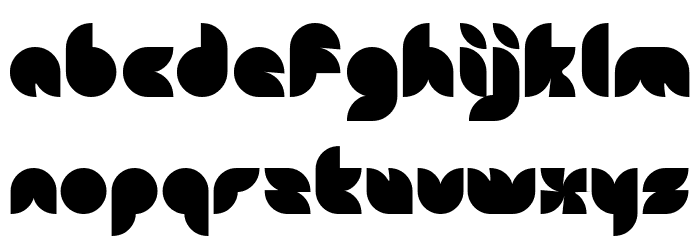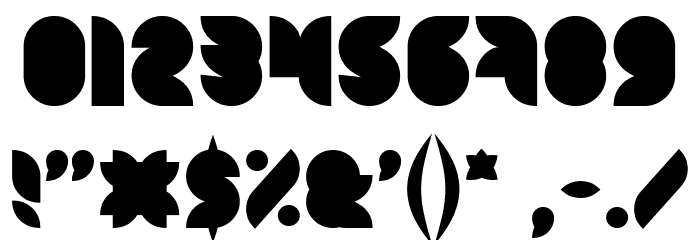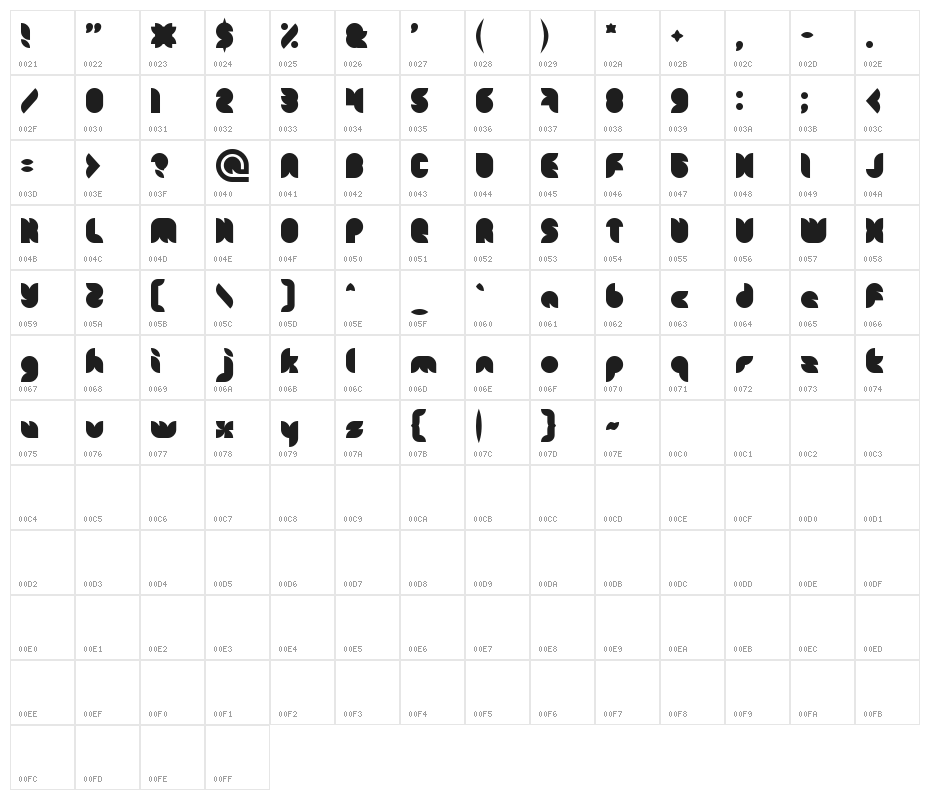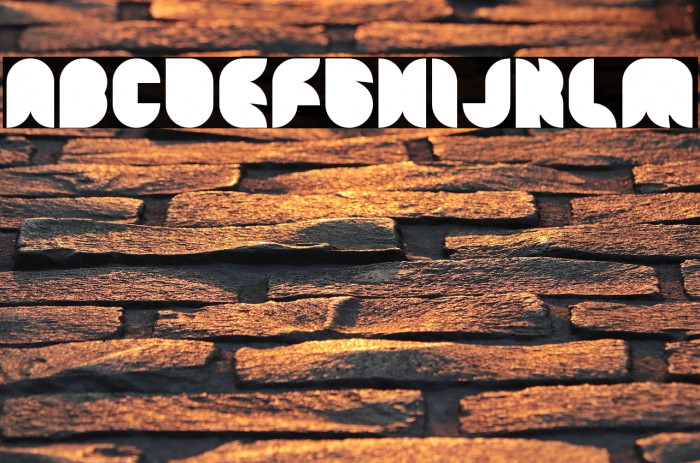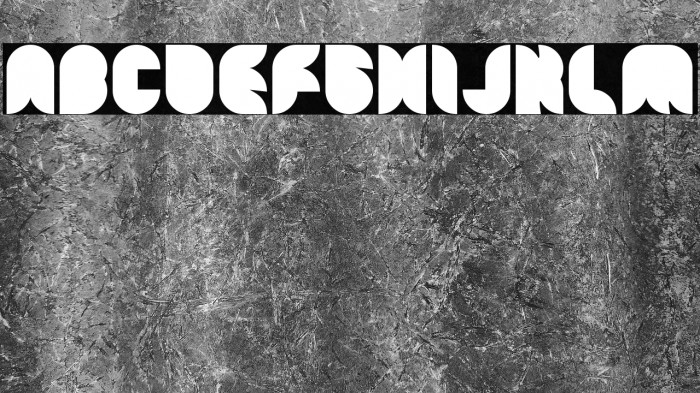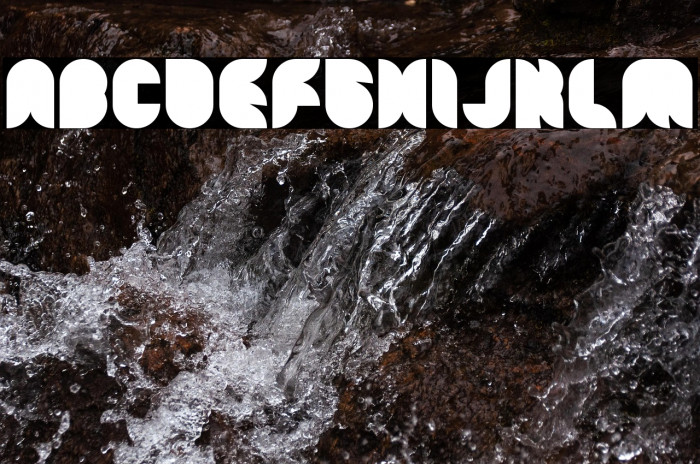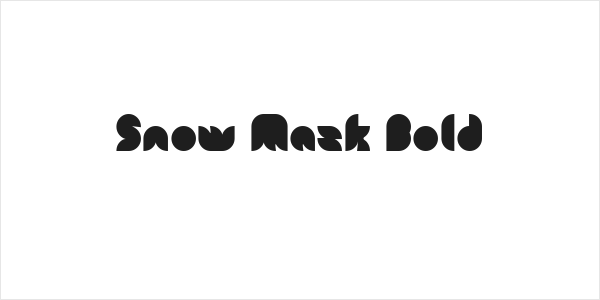
Snow Mask Bold Font
This bold and striking font features a highly geometric and abstract design, characterized by its thick, solid shapes and unique cutouts that create a sense of movement and energy. The letters are crafted with a modern aesthetic, utilizing sharp angles and curves to form a cohesive and visually impactful typeface. The uppercase and lowercase letters maintain a consistent style, while the numerals and special characters complement the overall design with their bold and dynamic forms. This font's distinct appearance makes it ideal for projects that require a strong visual presence.
A bold, geometric font with abstract cutouts and a modern aesthetic.
- Font: Snow Mask Bold